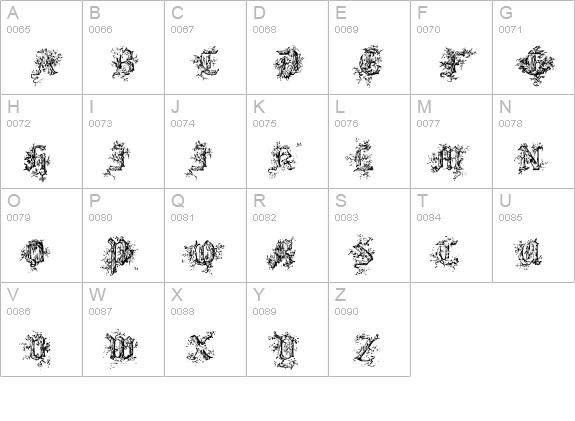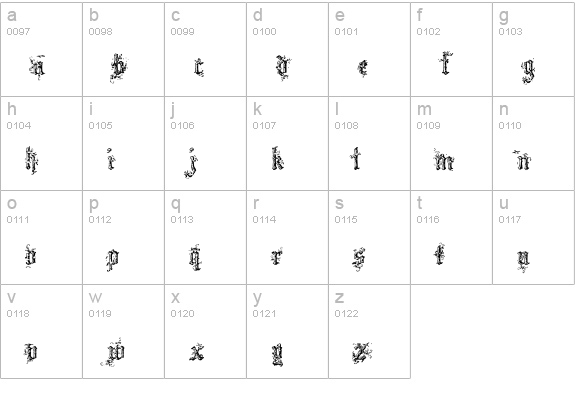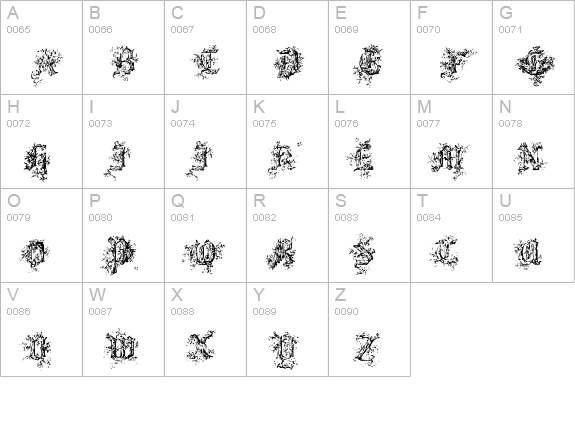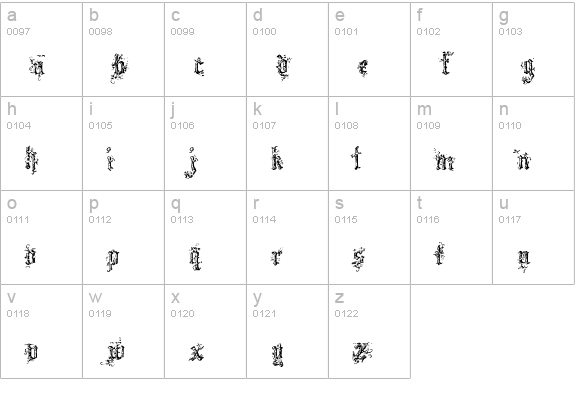
Black Forest is a maximum-weight, dramatic variant in the Black typeface family \xE2\x80\x94 well suited to maximum-impact headlines, posters, and packaging.
Black Forest font is a stunning display typeface that exudes a mysterious and elegant vibe. With its intricate details and bold letterforms, this font is perfect for creating eye-catching designs that demand attention. The unique serifs and flourishes give Black Forest a touch of sophistication and charm, making it an ideal choice for projects that require a touch of vintage or gothic style. The best part about Black Forest font is that it is completely free to download at FontsMarket.com. Whether you're working on a personal project or a professional design, this font offers versatility and style that will elevate your work to the next level. Don't miss out on the opportunity to add Black Forest font to your collection and bring a touch of timeless elegance to your designs.